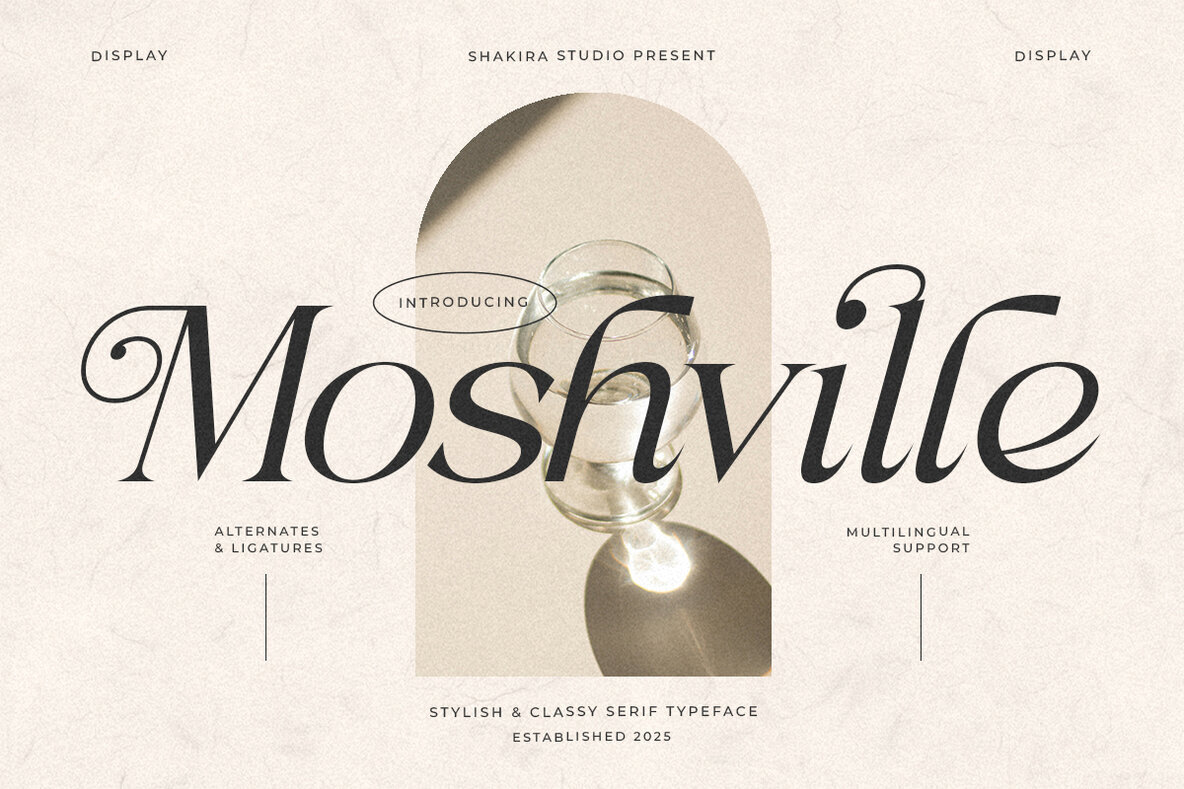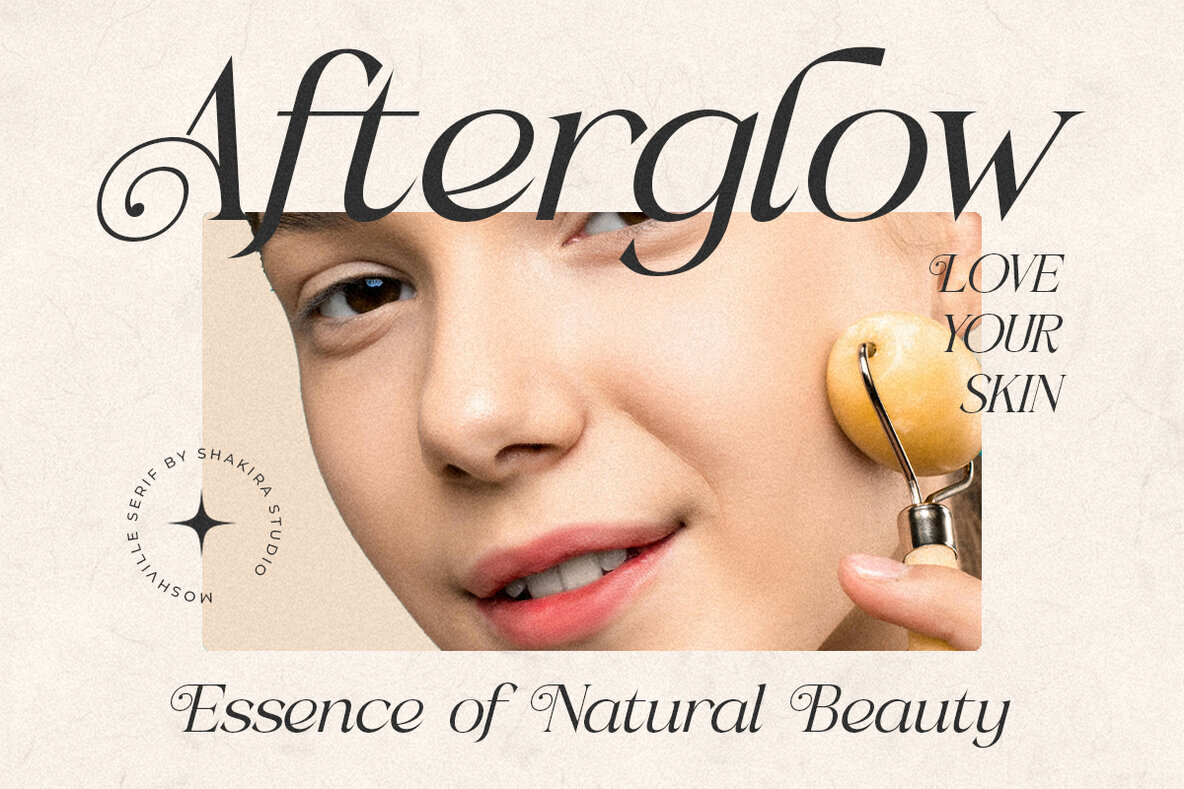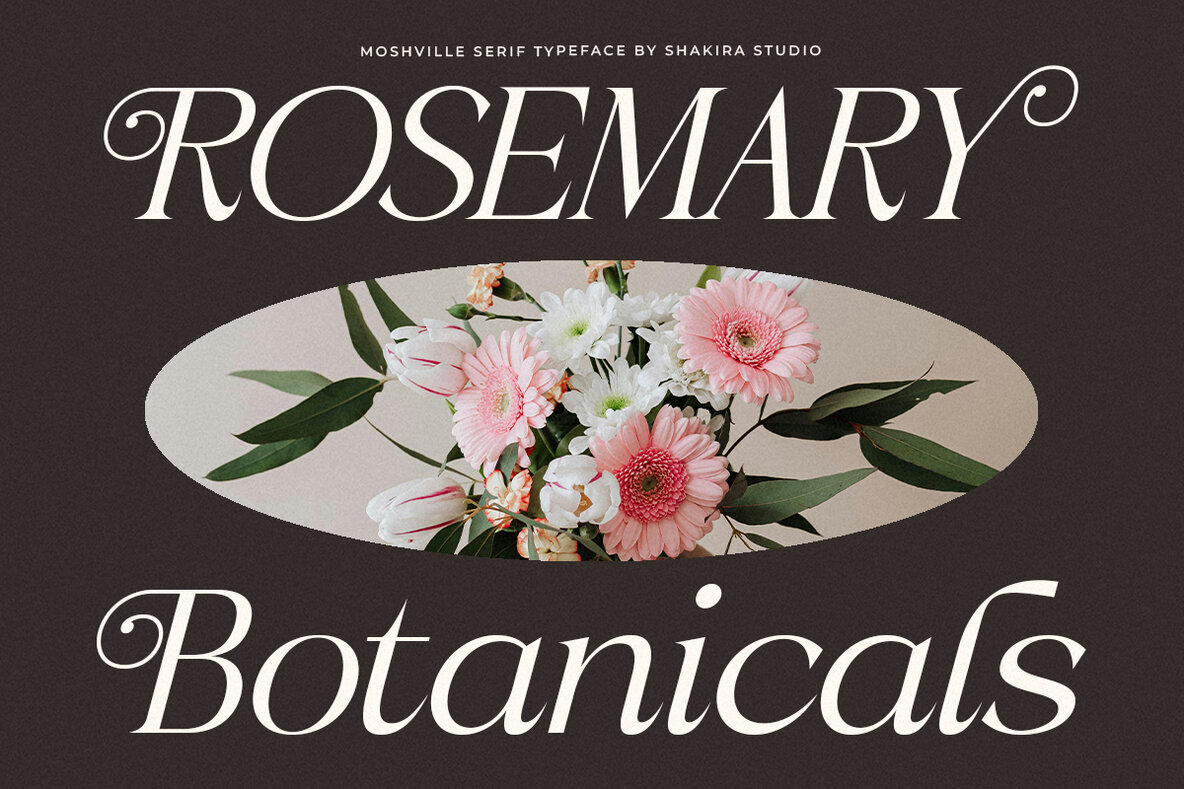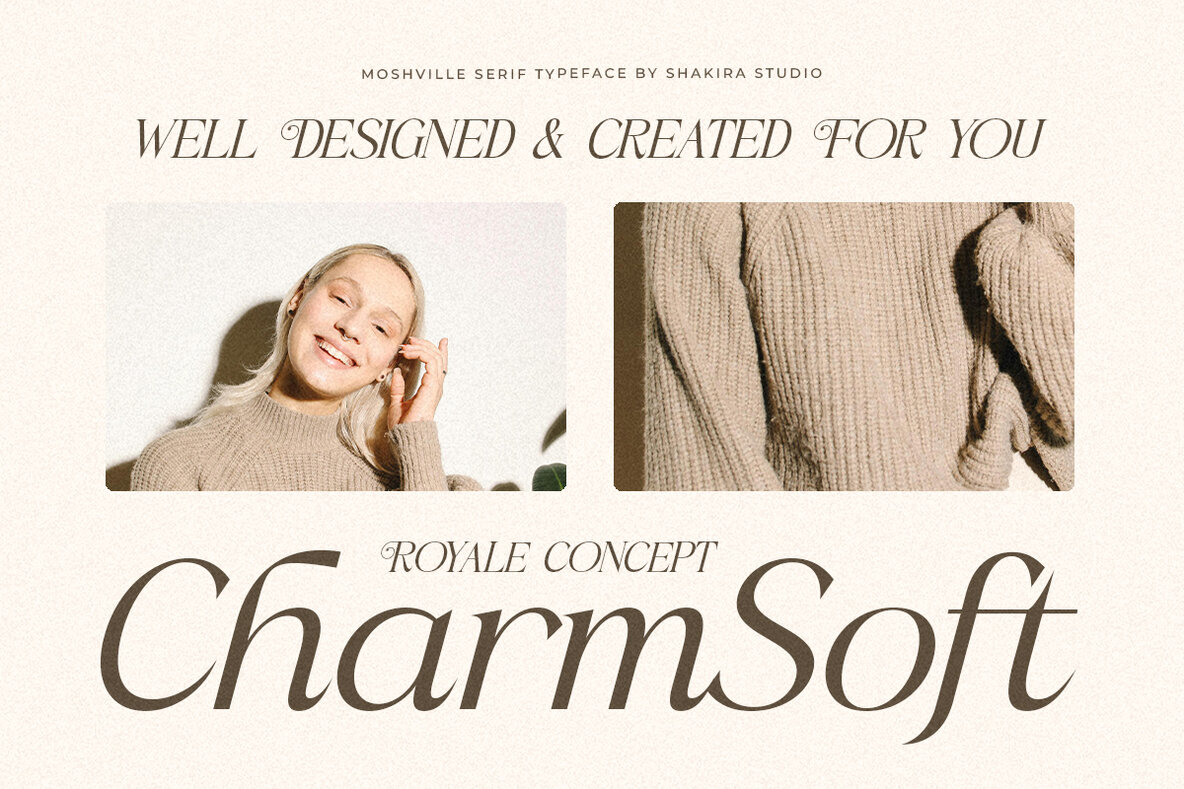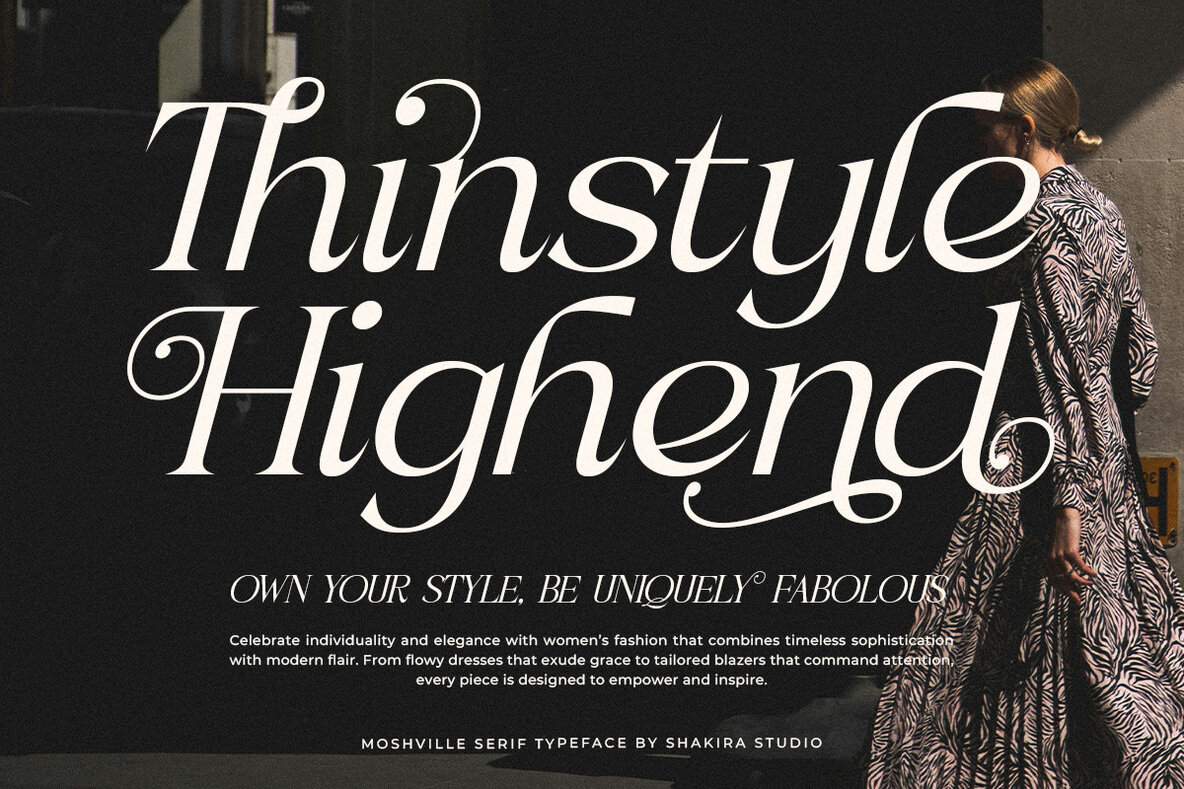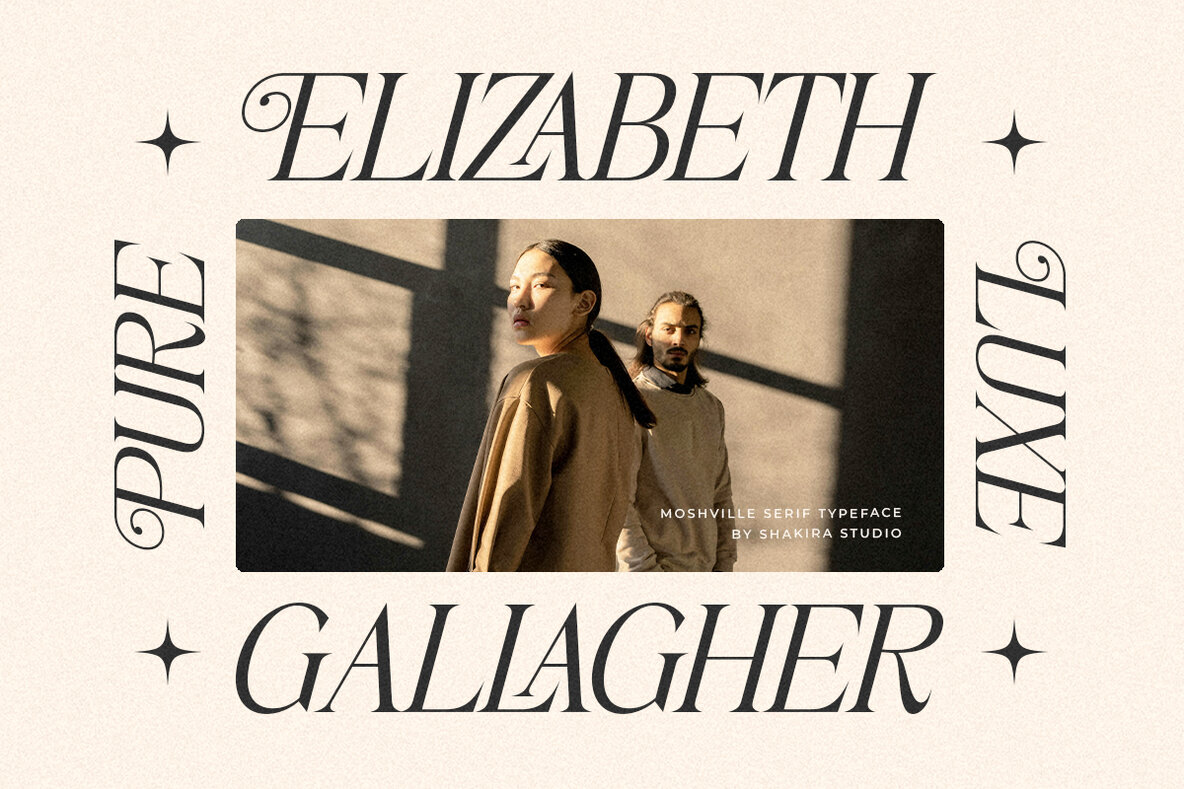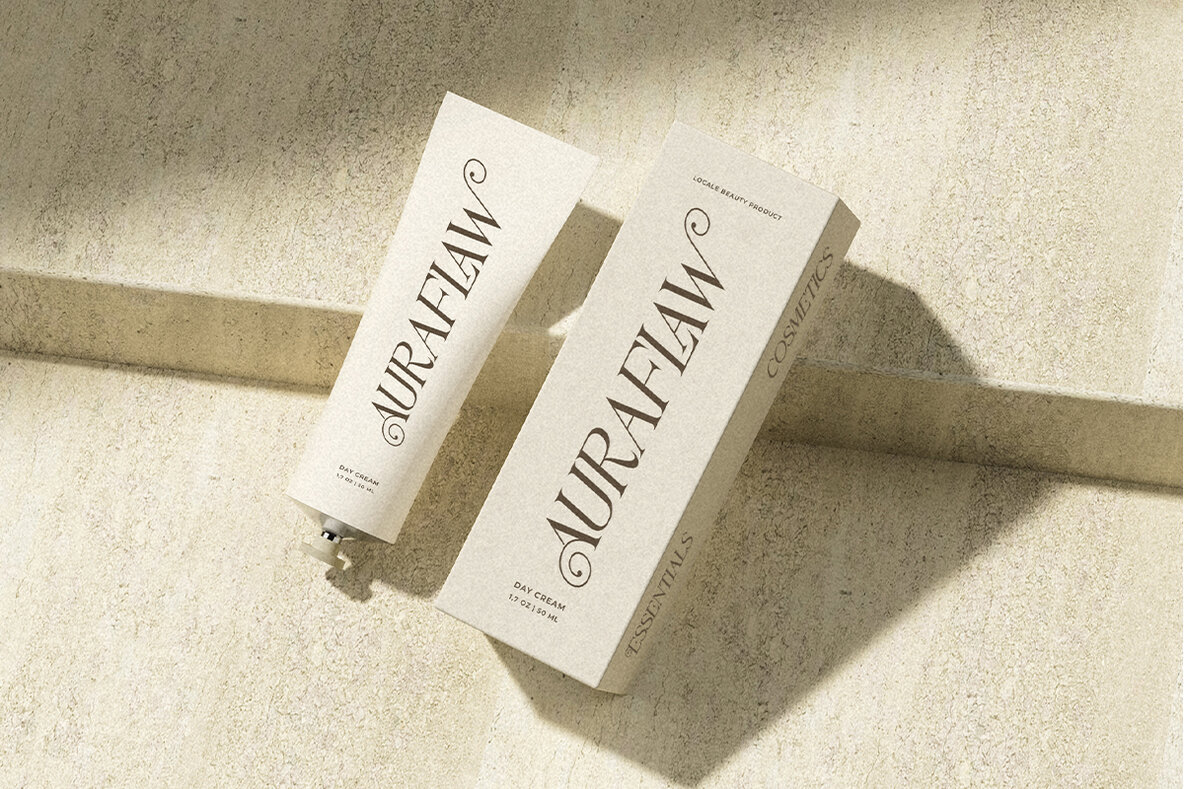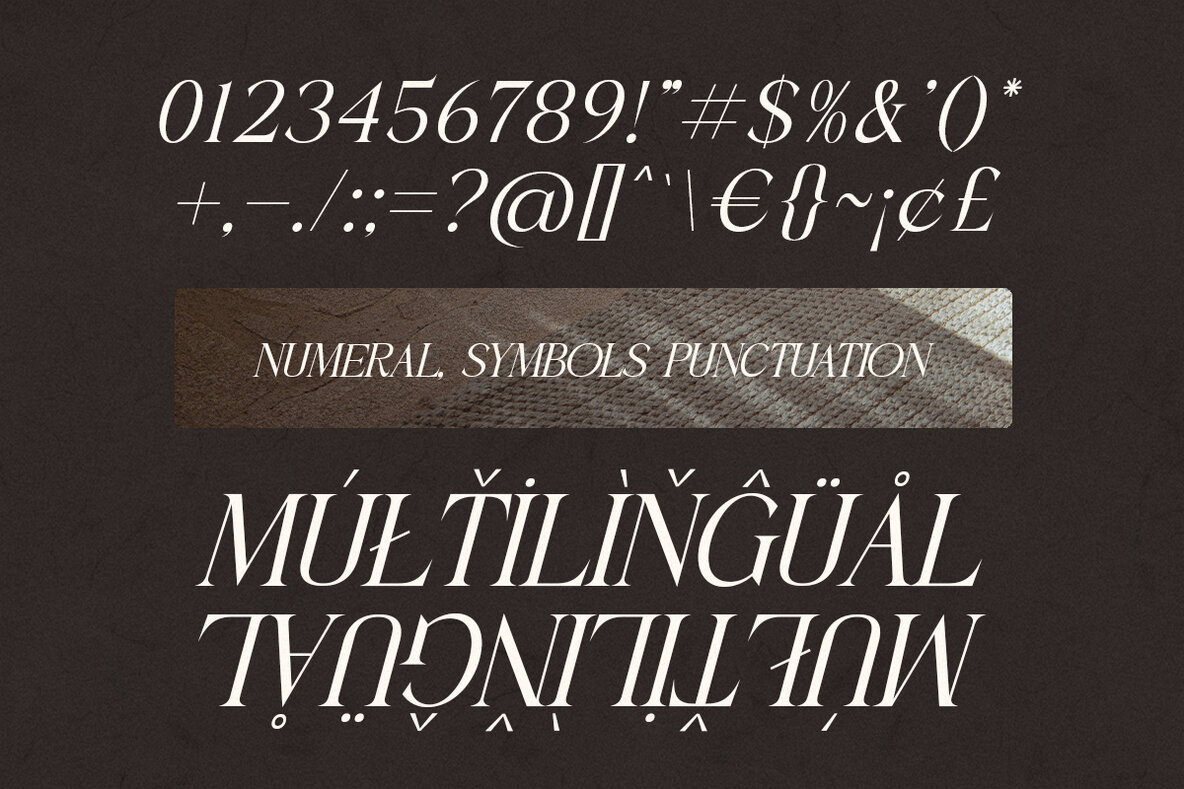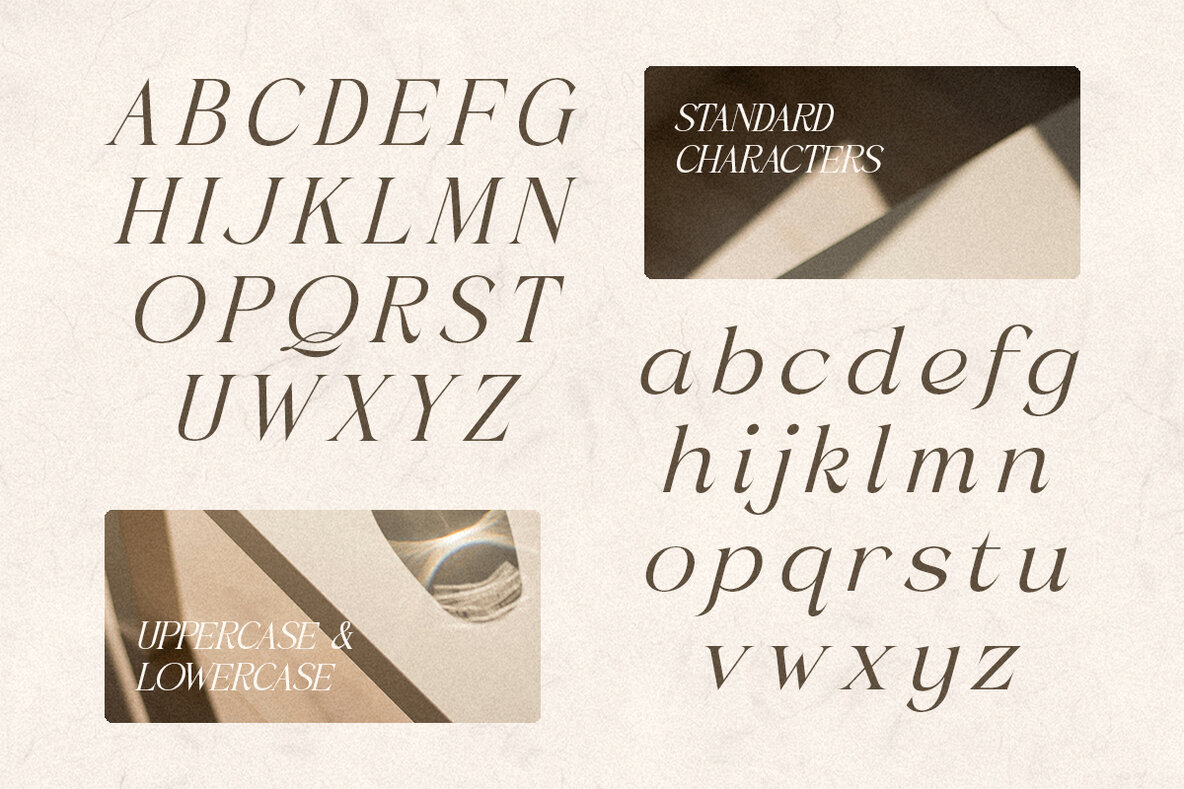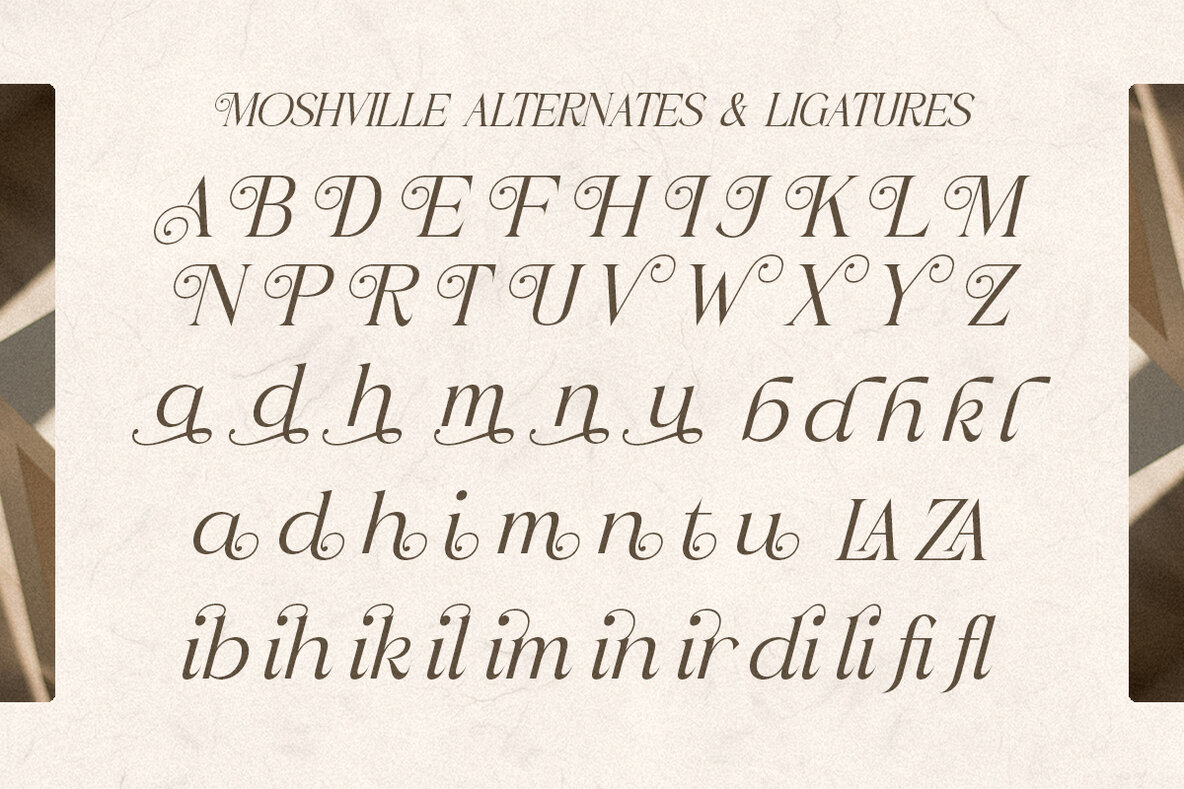
Moshville Font
Moshville Regular
Moshville is a sophisticated serif typeface designed to infuse elegance into your creative projects. With its array of alternates and ligatures, Moshville provides flexibility that makes it ideal for branding, editorial layouts, luxury packaging, and high-end print designs. Its modern yet timeless appeal lends itself beautifully to logos, magazines, posters, wedding invitations, and other marketing materials, ensuring a polished and professional aesthetic.
This font features refined curves and elegant strokes, perfect for those seeking a classy and versatile typeface. Moshville's rich typography capabilities include multilingual support, encompassing languages like Afrikaans, German, Italian, and Turkish, among many others. It also offers OpenType features such as ligatures and alternates, and is accessible in a variety of graphic design software, including Adobe Illustrator, Photoshop, InDesign, as well as Microsoft Word. The PUA encoded characters mean that Moshville can be fully utilized without needing additional design software, making it a must-have in any designer's toolkit.